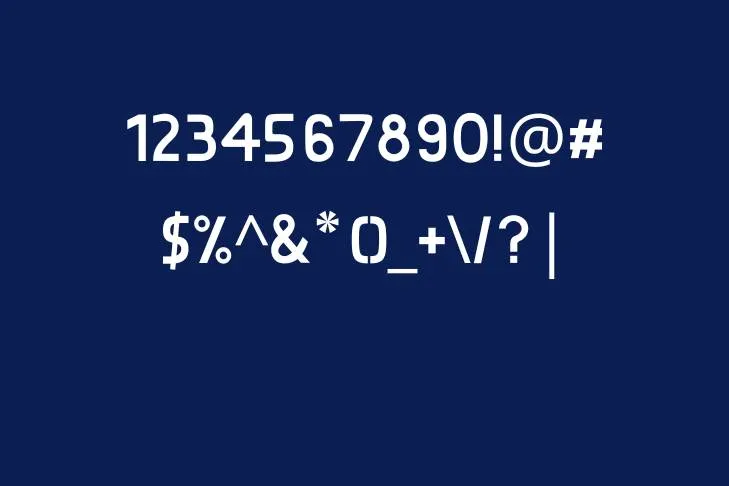
Sunscreen Font is a modern sans-serif typeface designed by Simon Cozens. The font has gained popularity in the design community for its contemporary look and unique design.
It made its debut in 2020, the font was inspired by the bold and striking lettering that is seen on sunscreen bottles. It is a versatile font that is perfect for a range of design applications due to its bold and modern appearance.
Characteristics of Sunscreen Font
It is a Sans-serif Fancy display typeface that features an all-caps character set. The font has a geometric design with clean lines, giving it a modern and stylish appearance. Sunscreen is available in six weights, ranging from thin to black, which makes it versatile for various design needs. The font is optimized for screen displays and has extensive language support, including Latin, Cyrillic, and Greek scripts.
Creative Ways to Use Sunscreen Font
This gorgeous font is suitable for a wide range of design applications. It is particularly well-suited for branding, packaging design, and advertising. The font’s bold and modern appearance makes it an ideal choice for designing logos, product packaging, and poster advertisements.
In short, it is a modern and versatile typeface that is suitable for a wide range of design applications. The unique visual impact of the font is perfect for catching the audience’s attention and communicating a clear and concise message.
Font Details
Name | Sunscreen Font |
Designer | Simon Cozens |
Style | Sans Serif |
This font is particularly designed to label sunscreen products of various globally acknowledged brands. Thus, it is supported by numerous languages used around the world. For instance, English, Russian, Italian, Spanish, French, Finnish, Greenlandic, Greek, and so on.
What is the type of Sunscreen font?
Sunscreen typeface is a modern sans-serif typeface designed by Simon Cozens. The font has gained popularity in the design community for its contemporary look and unique design.
The font’s bold and modern appearance makes it an ideal choice for designing logos, product packaging, and poster advertisements.